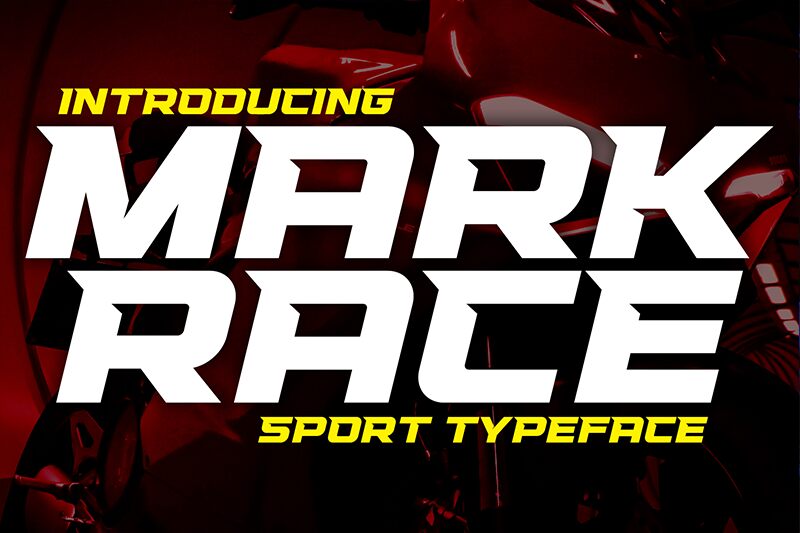
Racing Mark Race
Racing Mark Race font by Multype Studio is a futuristic display typeface that embodies a sleek and energetic aesthetic. With bold weight and expanded width, the font combines angular details, high-tech vibes, and modern accents into a strongly adaptable visual style.
This free display font instantly elevates vehicle branding, racing team logos, eSports posters, gaming covers, edgy package designs, title sequences in sci-fi films/series shows as well as numerous other contexts.